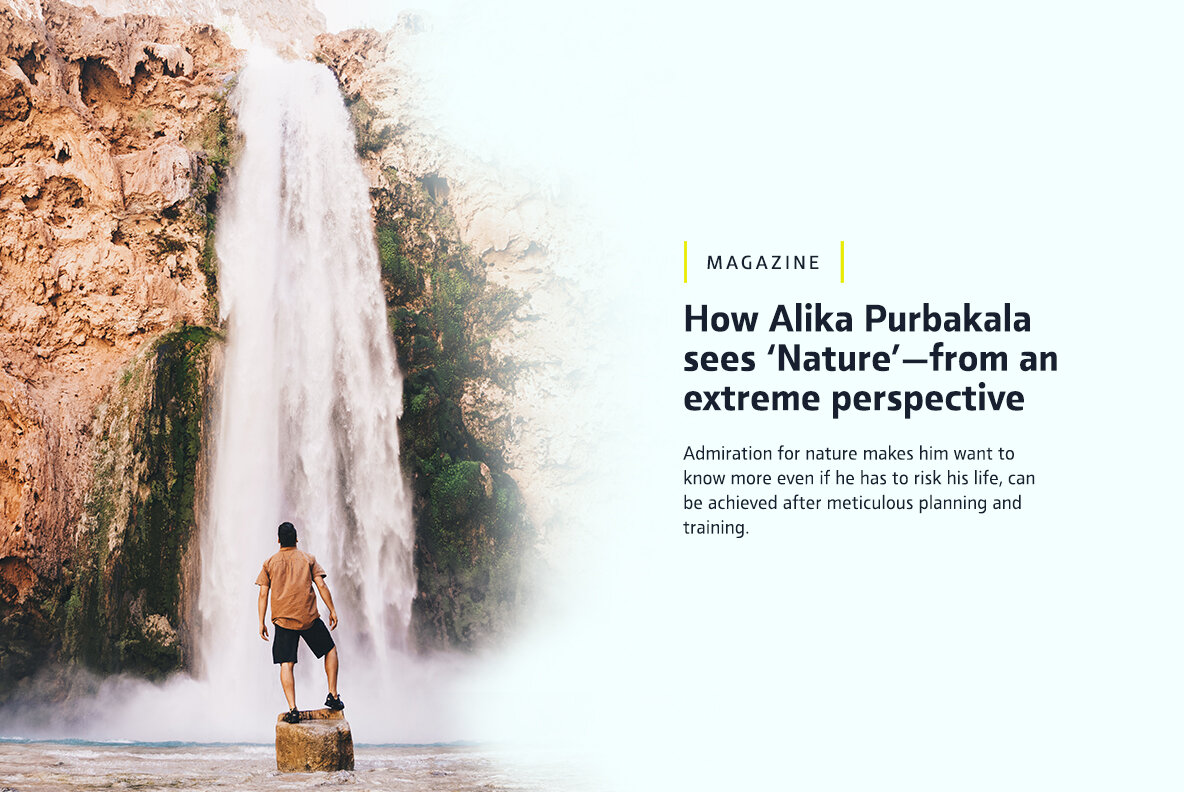
Malino Font
Malino is a humanist sans serif that gives a slightly stiff and strong feel but still presents a harmonious blend. The main characteristic of Malino is the flat shape at the end of the letter (specific : inner side of the letter C, G, J, S, a, c, e, g and s) and still maintain the curvature of the outside (Overshoot) so that empty space ( Open Counter) looks wider and the level of readability produced is much higher.